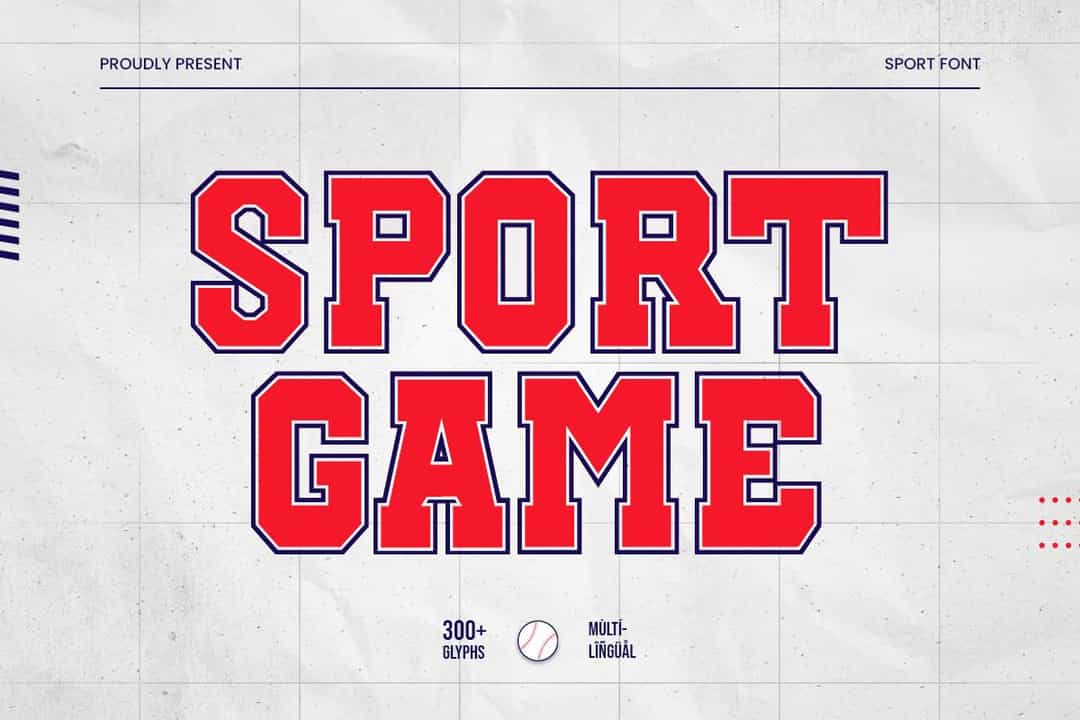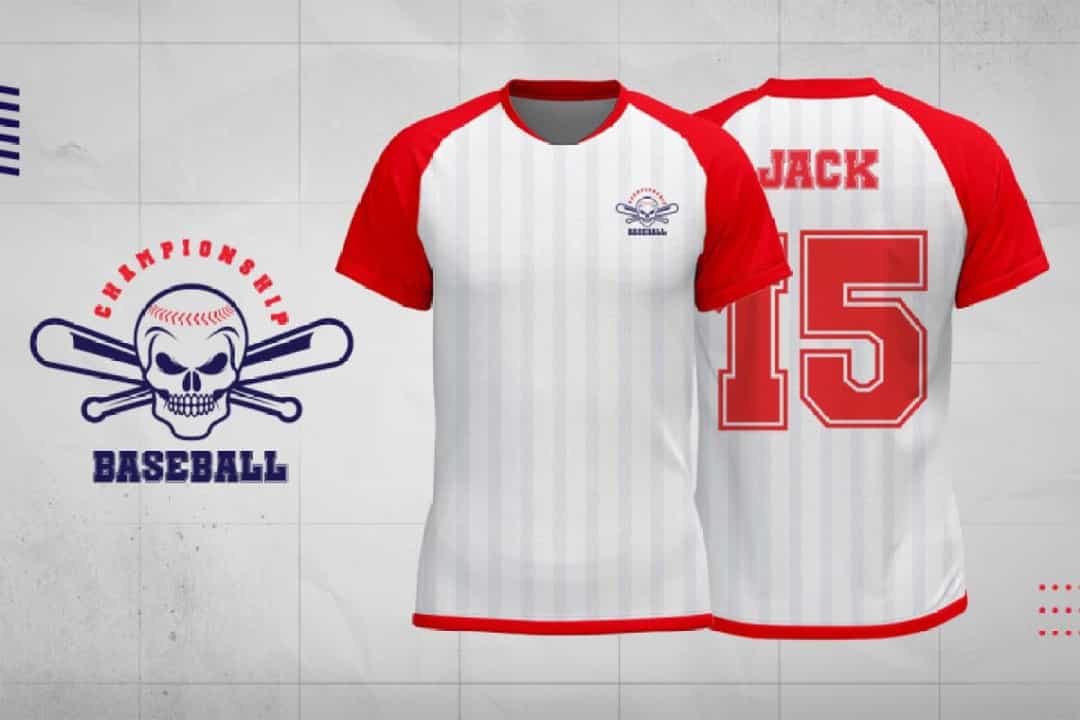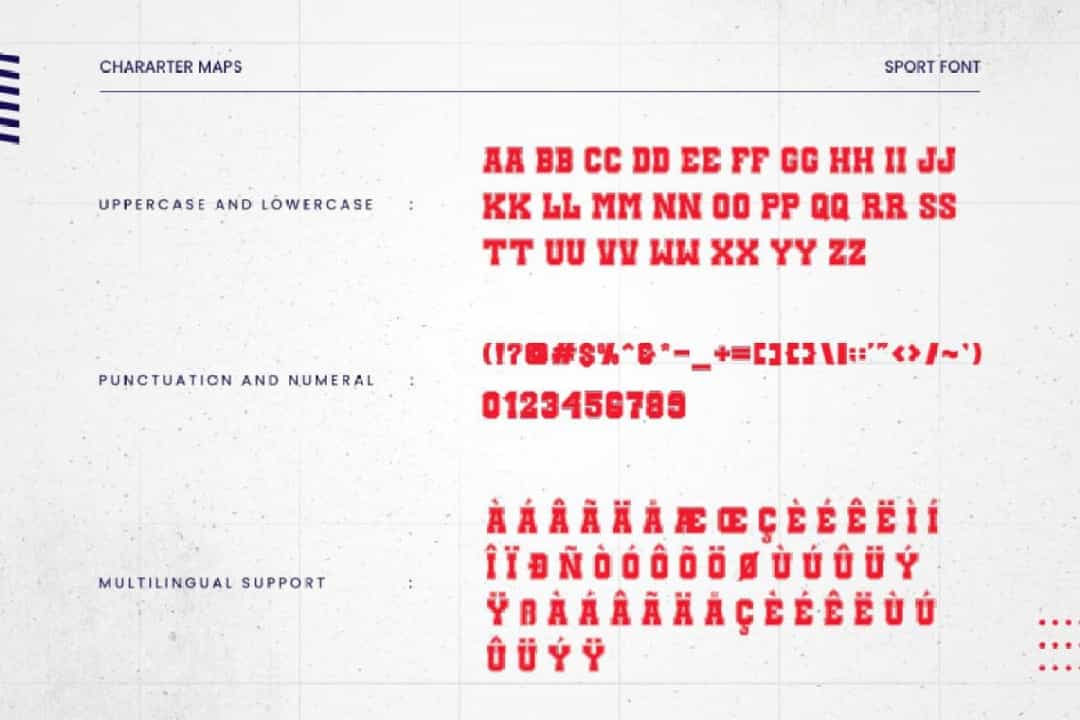
Discover Sport Game Font, part of the Slab Serif Display collection—a versatile and unique font perfect for adding a personal touch to your projects. Download it for free and enjoy crafting designs with style, from invitations to social media posts. This font is available exclusively for personal use, giving you the freedom to create without limits. Unlock your creativity with Sport Game Font today!
Sports Game can be described as an elegant sporting show typeface with its own distinct and sophisticated style. Ideal for large projects such as branding, sports and more – your imagination is truly the only limit here!